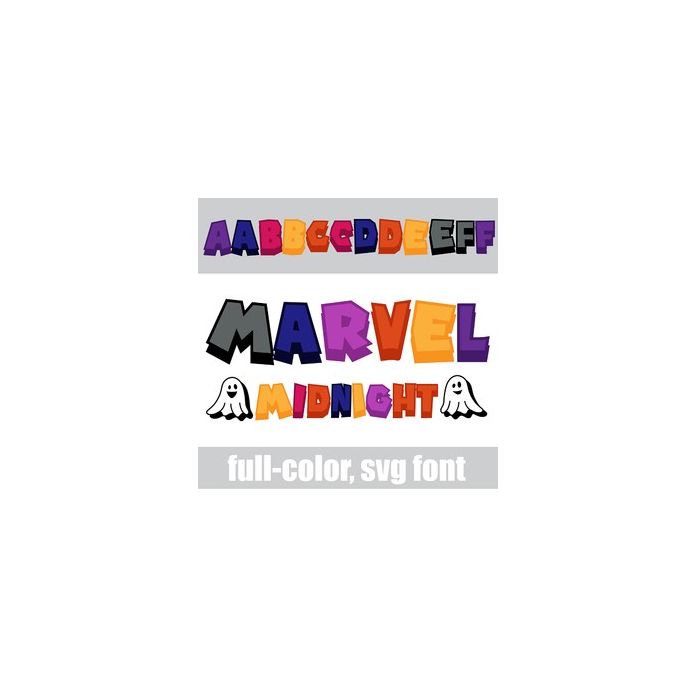
This full-color font features a fun Halloween color palette, 3d shadows and little ghosts you can access by typing the greater than and less than glyphs. There is an alt case w/ additional colors you can access through your system or Silhouette's glyph map.